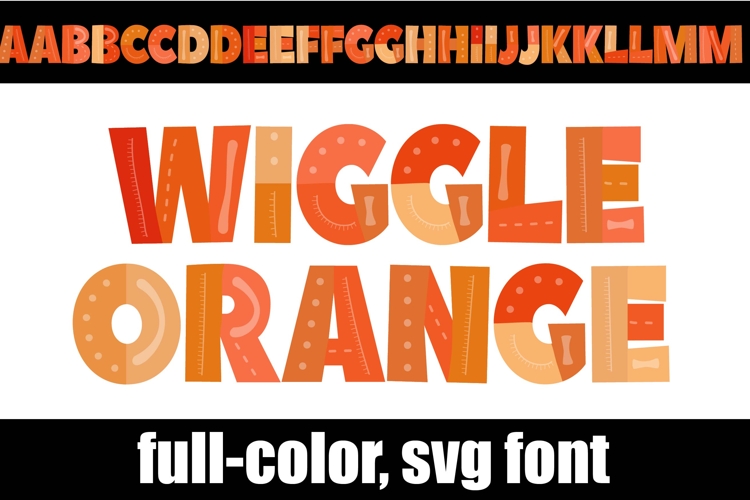
Wiggle-Orange Color Font
This hand-crafted font is a full-color font featuring the color orange. There is an alt case of each letter with a different color combination.